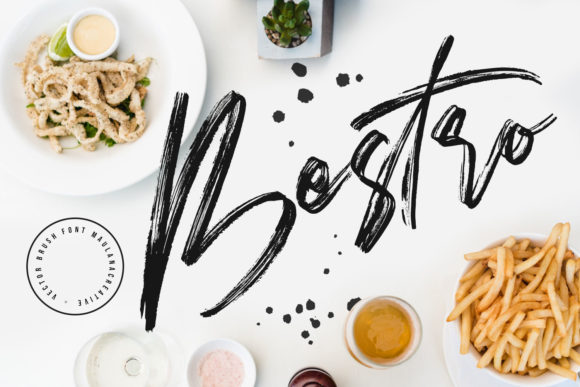
Behold Bestro, the enchanting script font that adds a touch of elegance and sophistication to your digital creations. This captivating font is meticulously handcrafted, featuring graceful strokes that effortlessly evoke a sense of timeless beauty. Stroll through the vast collection of enchanting characters, each delicately designed to provide a harmonious blend of classic and modern aesthetics.
Bestro is the perfect font for those seeking to express their creativity through the art of calligraphy. Its sweeping lines dance across the page, painting words that exude an air of charm and allure. Experience the joy of penning heartfelt letters, composing captivating invitations, or crafting stunning designs that leave a lasting impression.
Immerse yourself in the boundless possibilities that Bestro offers. Whether you're a seasoned designer or just starting your artistic journey, this font will become your trusted companion. Its versatility shines through in a multitude of projects, from elegant wedding invitations and social media posts to eye-catching logos and branding materials.
Step into a world of creativity and let Bestro take center stage. As you weave your words together, you'll discover the true power of typography. With every letter you type, you'll feel a sense of artistry and inspiration flowing through your fingertips. Prepare to be captivated by the allure of Bestro, the font that will transform your designs into masterpieces of art.